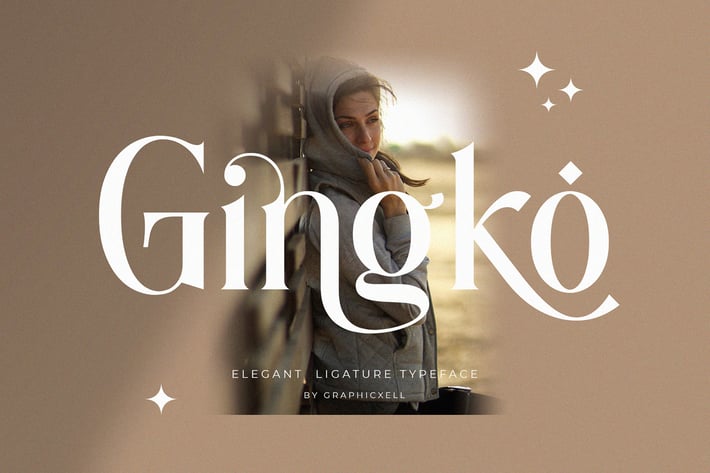
Gingko Ligature Typeface
Gingko is a modern serif ligature font that combines elegant style with clean, simple shapes. Thanks to its stylish ligatures, this font gives every project a high-end, professional look. Whether you’re working on branding, logos, product packaging, or wedding invitations, Gingko offers a timeless style that is both classic and modern.
Unlike many serif fonts, Gingko uses creative ligatures to help your text stand out naturally. As a result, your words flow smoothly, making every design feel more stylish yet still easy to read. Therefore, Gingko works beautifully in both large titles and smaller body text.
Why choose Gingko Ligature Serif Font?
- Elegant serif style with creative ligature details
- Perfect for branding, logos, and product packaging
- Simple shapes paired with stylish touches
- Includes full alphabet, numbers, and symbols
- Ideal for social media, websites, and magazines
- Great for both digital designs and print projects
Moreover, Gingko’s ligatures make your text look unique without becoming hard to read. This balance of style and readability makes it a great option for fashion brands, beauty labels, and creative businesses. It works just as well for wedding invites as for luxury product labels.